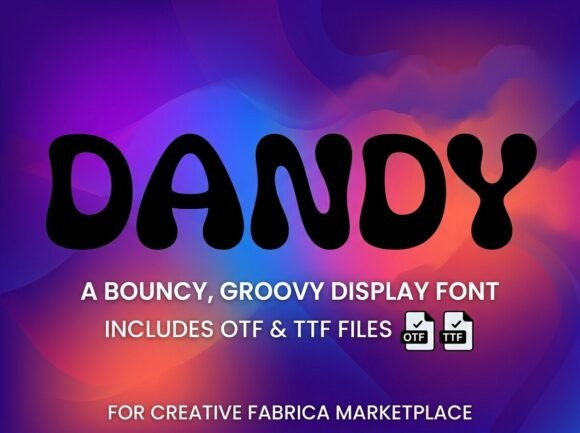
Introducing Dandy Font: A Groovy Retro Display Font
Are you looking to add a touch of nostalgia to your designs? Do you want to transport your audience back to the era of psychedelia and sunshine? Look no further than Dandy, a premium retro display font that’s sure to bring a smile to your face. This fantastic typeface features heavy, bulbous letterforms with a playful, undulating rhythm that’s reminiscent of the iconic “lava lamp” aesthetic of the 1960s and 70s.
The Inspiration Behind Dandy
Dandy is more than just a font – it’s a time machine. Inspired by the psychedelic art movement of the 1960s and 70s, Dandy captures the essence of a bygone era. The font’s soft, rounded terminals and high-impact visual weight make it an exceptional choice for vintage-inspired branding, festival posters, funky apparel design, and bold social media headers. Whether you’re crafting a logo for a modern lifestyle brand or a standout header for a retro campaign, Dandy delivers a sense of groovy nostalgia and effortless, handcrafted cool to every word.
What Makes Dandy So Special?
So, what sets Dandy apart from other fonts? Here are just a few features that make it a standout:
- Heavy, bulbous letterforms: Dandy’s letterforms are bold and eye-catching, with a playful, undulating rhythm that’s sure to grab attention.
- Soft, rounded terminals: The font’s soft, rounded terminals add a touch of warmth and friendliness to your designs.
- High-impact visual weight: Dandy’s high-impact visual weight makes it perfect for bold statements and eye-catching headlines.
- Playful, handcrafted feel: Dandy has a playful, handcrafted feel that’s perfect for designs that need a touch of personality.
Perfect for Vintage-Inspired Designs
Dandy is the perfect font for designers who want to create vintage-inspired designs that pop. Here are just a few ideas for using Dandy in your designs:
- Vintage-inspired branding: Use Dandy to create a logo or brand identity that’s reminiscent of the 1960s and 70s.
- Festival posters: Dandy is perfect for creating eye-catching festival posters that capture the spirit of music festivals past.
- Funky apparel design: Use Dandy to create bold, eye-catching designs for t-shirts, hoodies, and other apparel.
- Bold social media headers: Dandy is perfect for creating bold, eye-catching social media headers that grab attention.
Tips for Using Dandy in Your Designs
Here are a few tips for using Dandy in your designs:
- Use it boldly: Dandy is a bold font, so don’t be afraid to use it boldly. Experiment with large font sizes and bold colors to make a statement.
- Experiment with color: Dandy looks great in a variety of colors, so don’t be afraid to experiment. Try using bright, bold colors to capture the spirit of the 1960s and 70s.
- Pair it with other fonts: Dandy can be paired with other fonts to create a unique and interesting look. Try pairing it with a sans-serif font for a bold, modern look.
In conclusion, Dandy is a fantastic retro display font that’s perfect for designers who want to add a touch of nostalgia to their designs. With its heavy, bulbous letterforms, soft, rounded terminals, and high-impact visual weight, Dandy is sure to bring a smile to your face. Whether you’re crafting a logo for a modern lifestyle brand or a standout header for a retro campaign, Dandy delivers a sense of groovy nostalgia and effortless, handcrafted cool to every word. So why wait? Download Dandy today and start creating your own groovy designs!